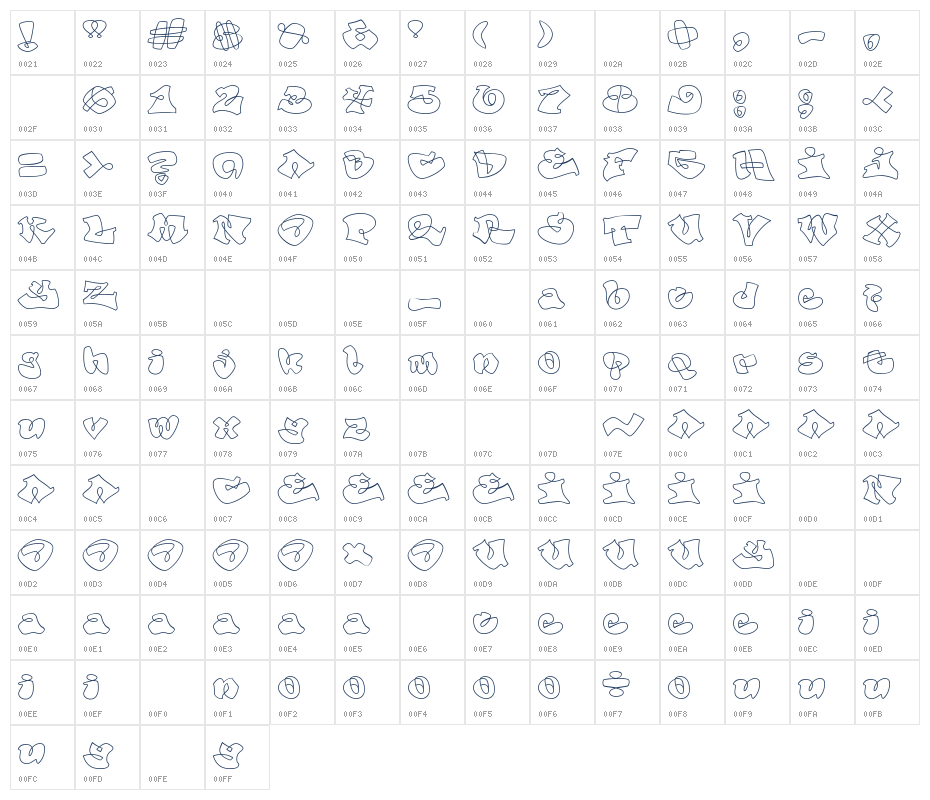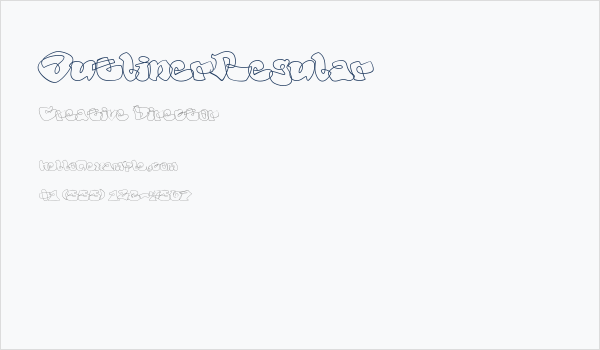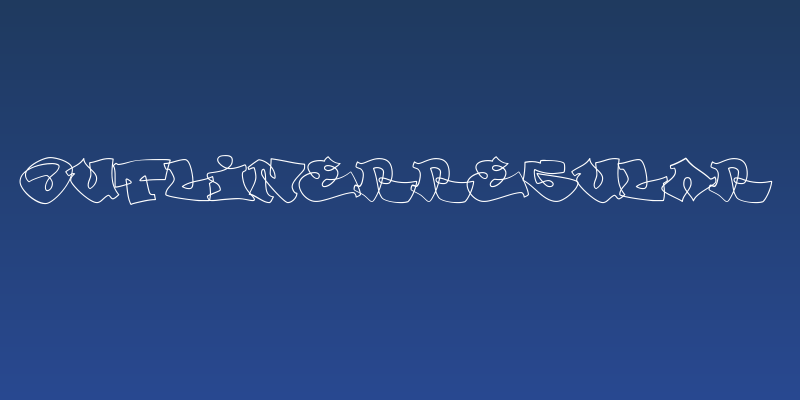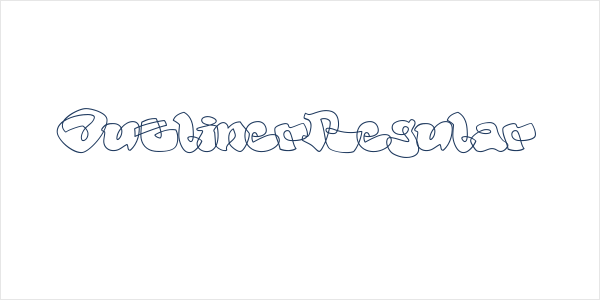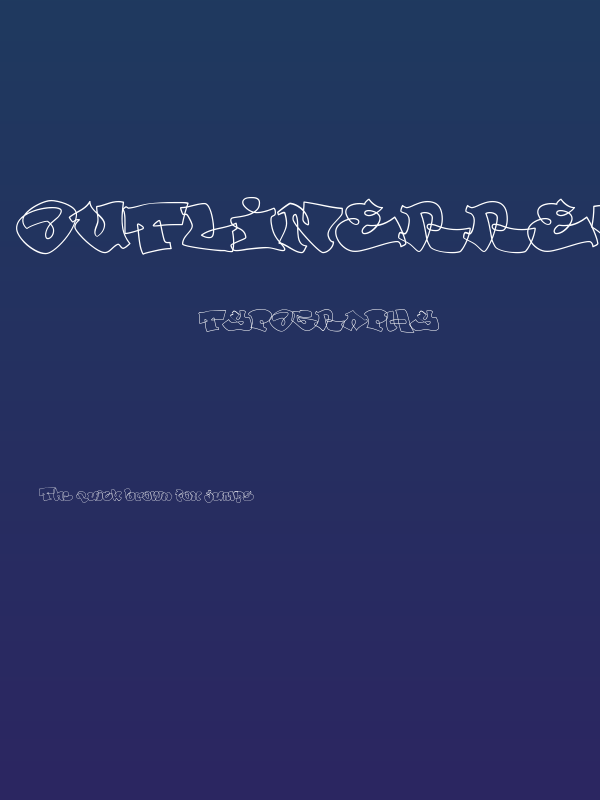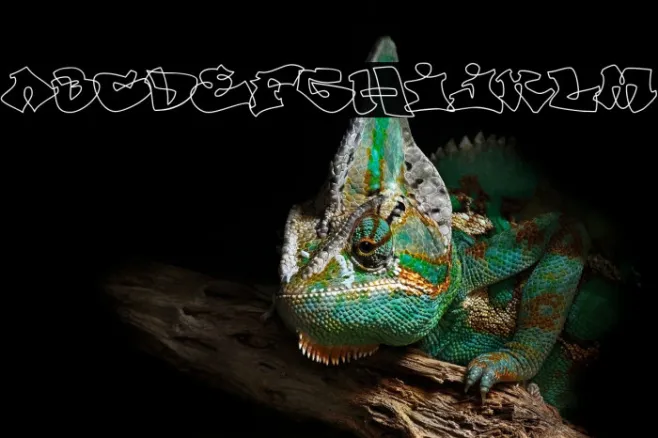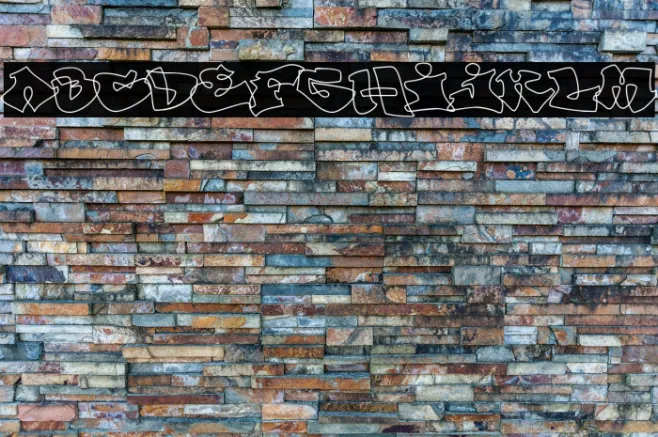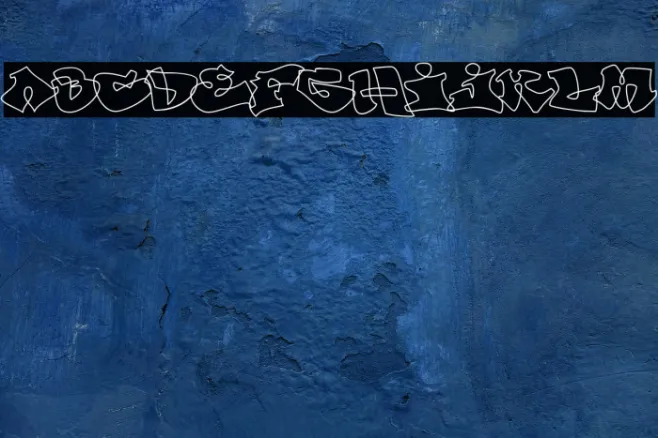
OutlinerRegular Font
OutlinerRegular Description
A decorative, continuous line script font with a handwritten, artistic style, featuring flowing, interconnected characters.
| Overall Style | Artistic, Handwritten, Decorative |
| Use Case | Logos, Invitations, Artistic Projects |